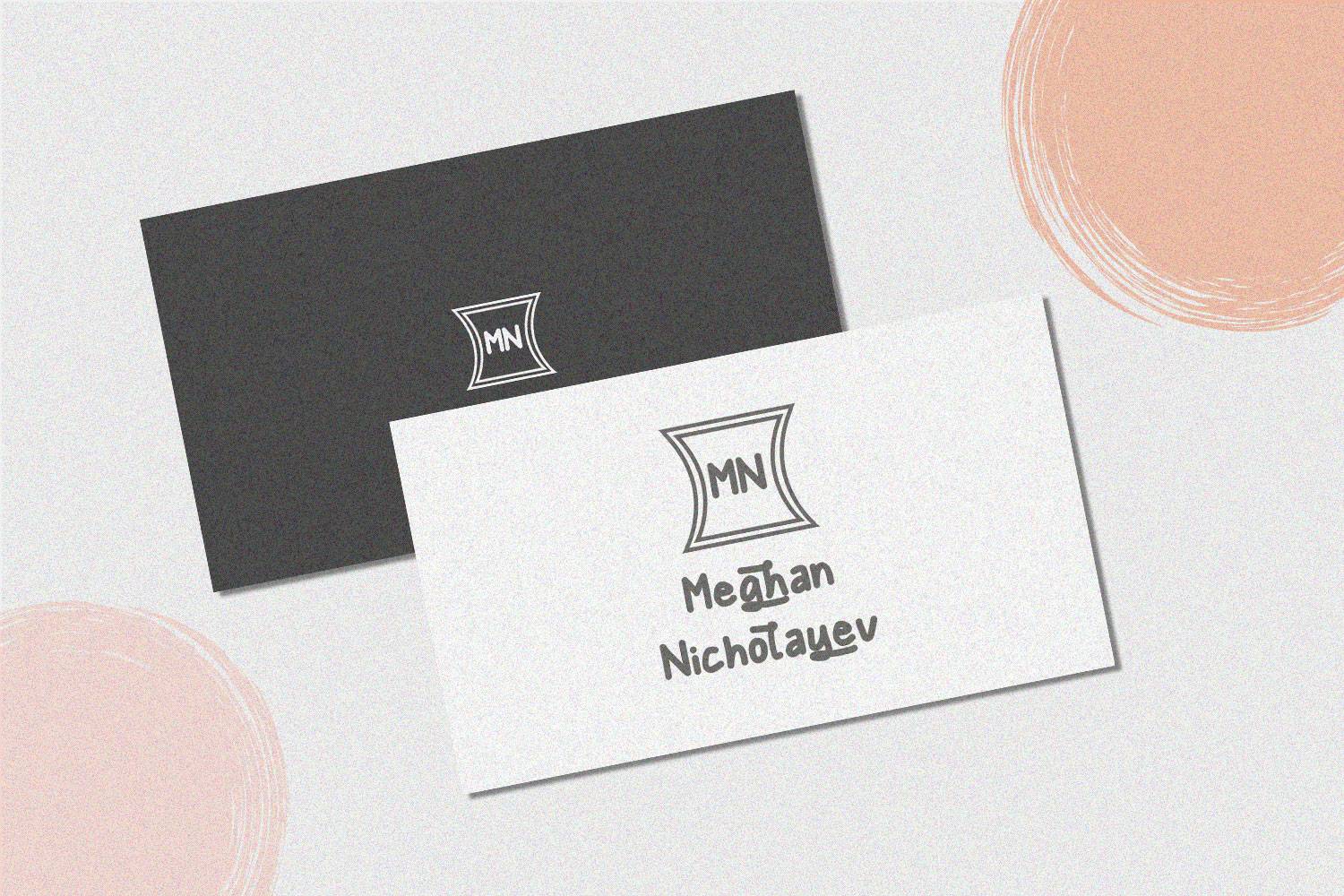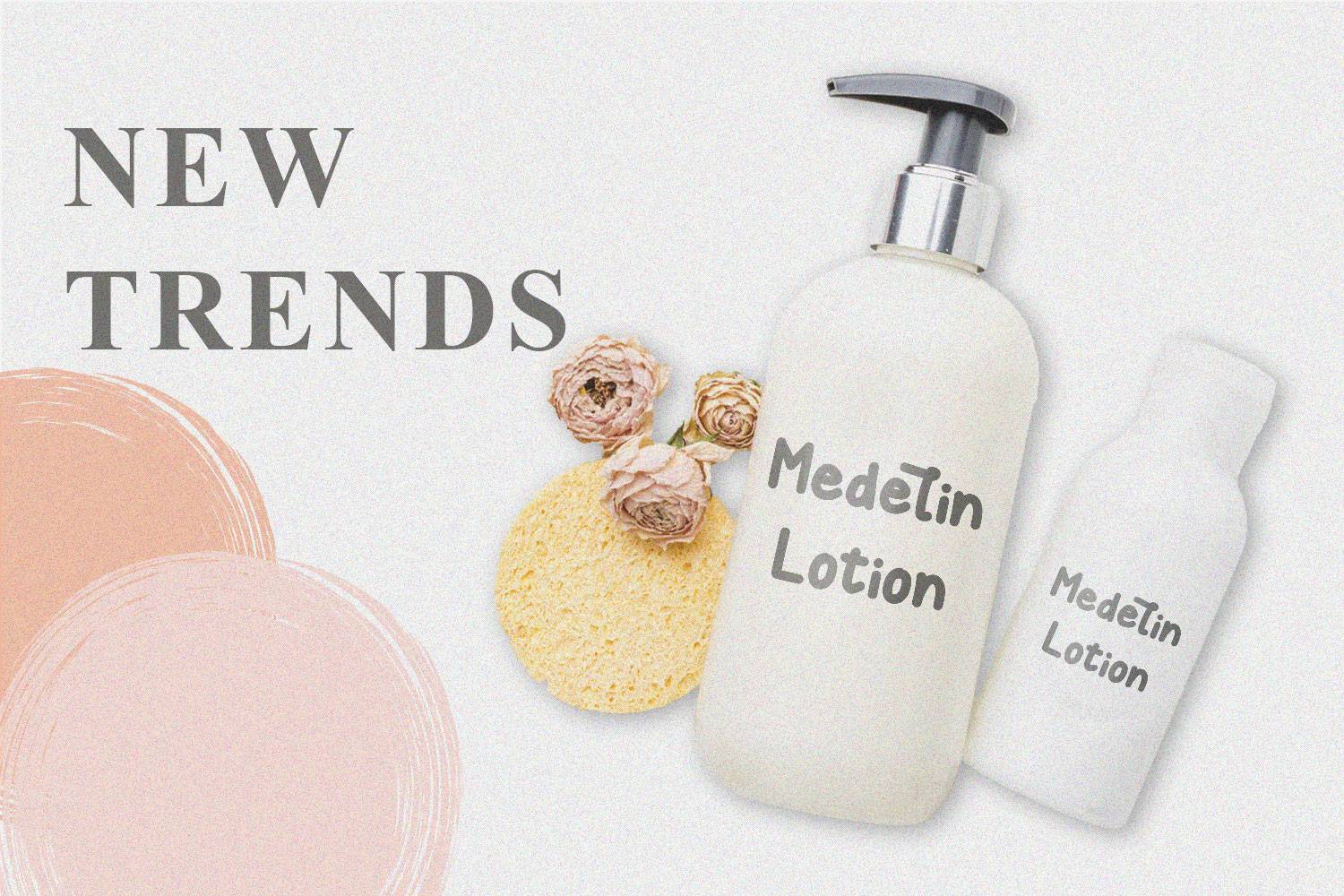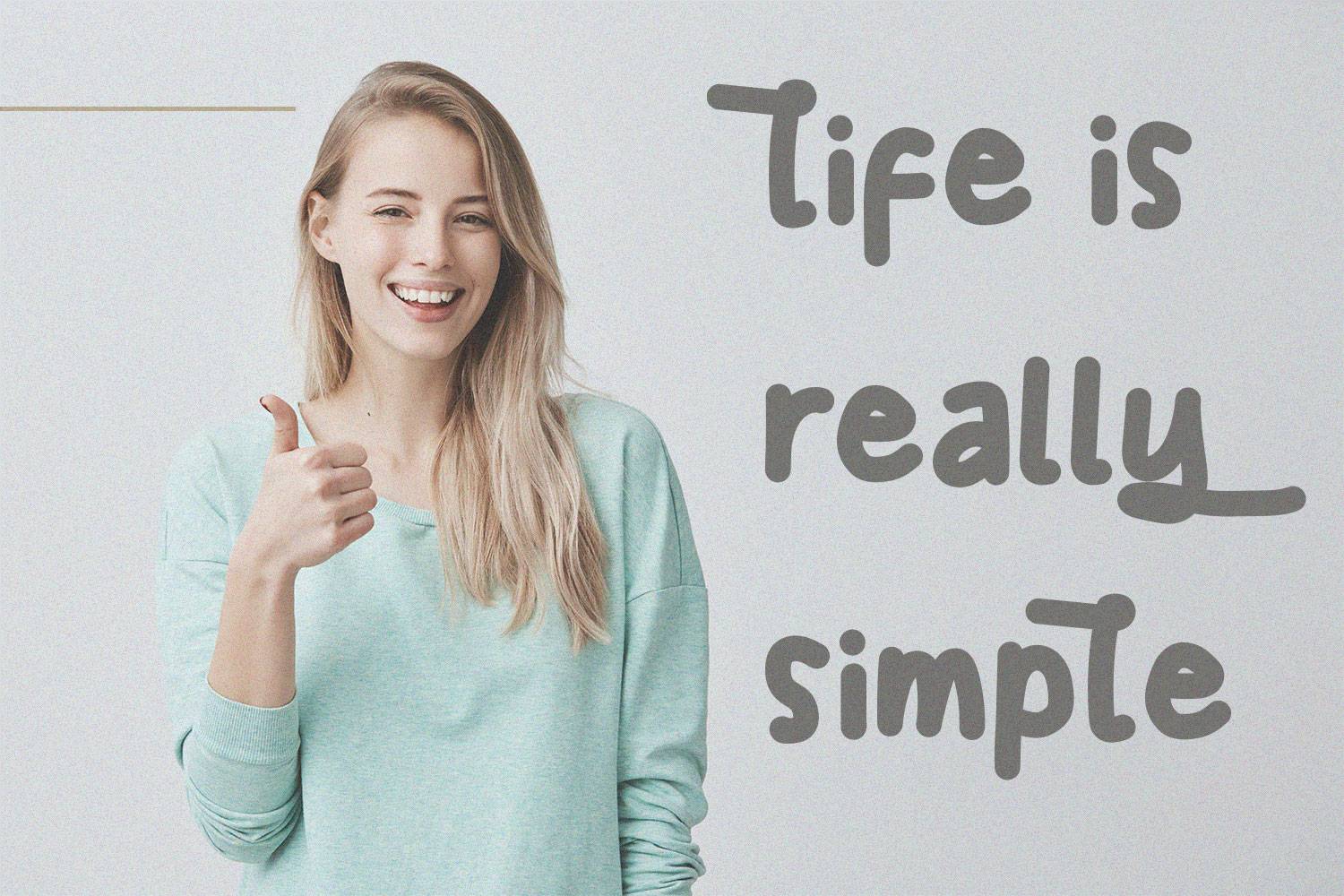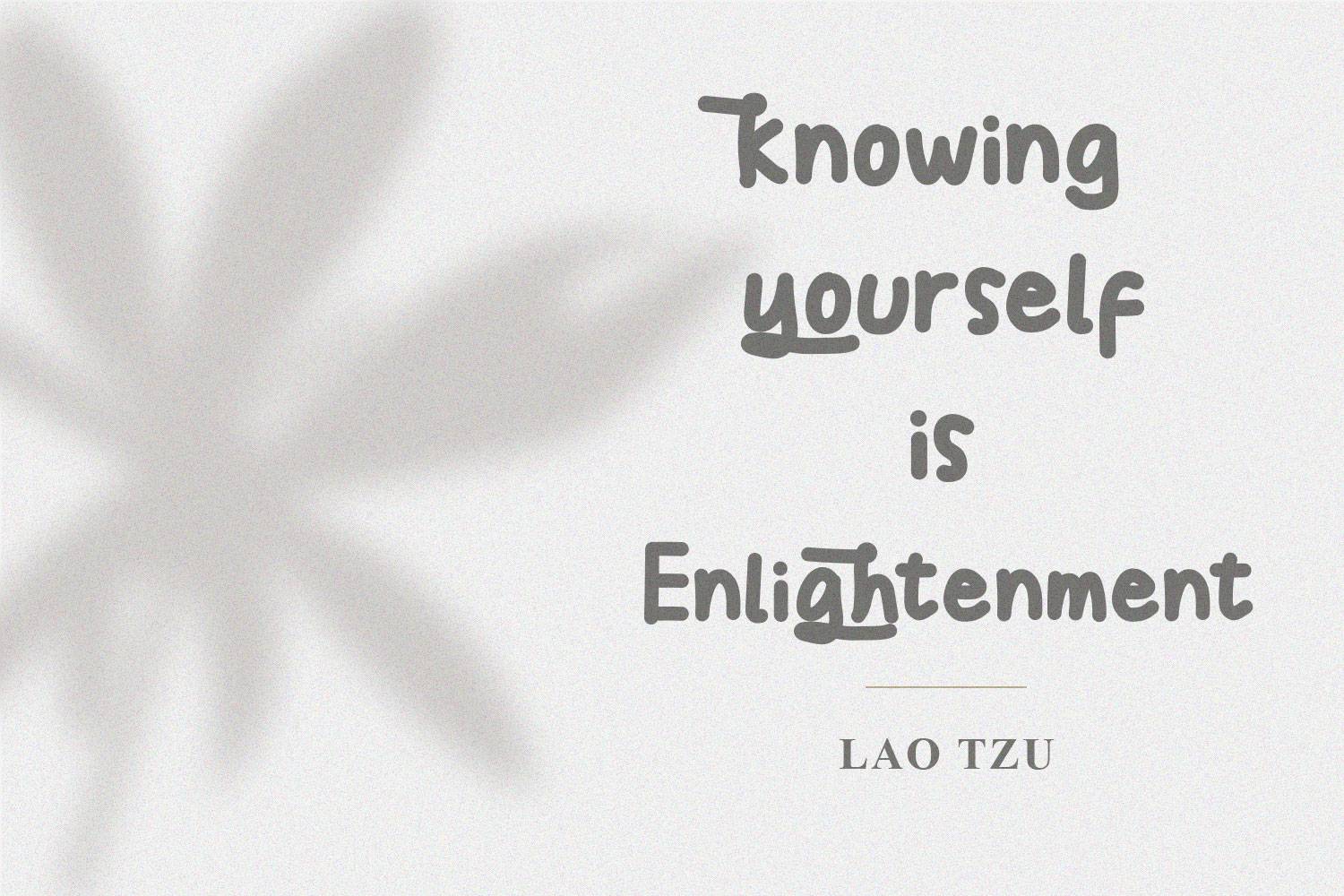
Ascott Young is a playful and casual sans serif font with rounded, slightly irregular letterforms that give it a hand-drawn, friendly vibe. Its moderate weight and open shapes make it highly legible for informal designs, perfect for children’s books, posters, and creative branding where a warm, approachable personality is desired. This font works well in settings that aim for a fun, youthful, and inviting atmosphere.
Ascott Young Font
About Ascott Young Font